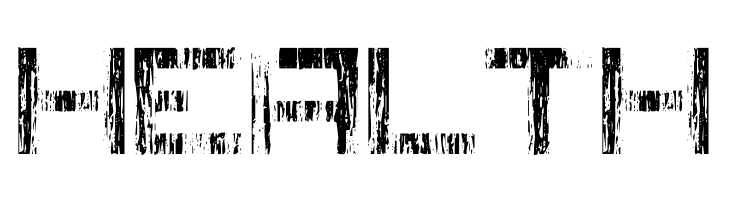
A bold, italic font with a dynamic and modern style.
A playful, bold font with rounded, hand-drawn characters.
A playful, italic font with bold, hand-drawn characters and a whimsical style.
A playful, hand-drawn font with a condensed and quirky style.
A bold, condensed, and italicized font with a dynamic and modern style.
A whimsical, decorative font with looping, swirling strokes and calligraphic flair.
A bold, distressed font with a splattered, gritty appearance.
A modern, geometric font with bold, clean lines and a cohesive design.
A runic-inspired font with bold, angular, and geometric shapes.
A decorative, runic-inspired font with a bold, distressed texture.
An ornate and decorative font with elaborate swirls and flourishes.
A bold, distressed font with a grunge aesthetic, perfect for impactful designs.
A bold, striped font with a modern, industrial look.
A bold, distressed font with a grunge aesthetic and textured edges.
A hand-drawn, casual font with uneven strokes and a playful appearance.
A bold, distressed font with a vintage, textured appearance.
A bold, decorative typeface inspired by ancient runic alphabets with geometric shapes.
A bold, brush-stroke style font with a hand-painted, textured appearance.
A bold, textured runic font with a rugged, ancient appearance.
A chaotic, distressed font with jagged strokes and splattered ink effects.
A casual handwritten font with a dynamic and lively appearance.
A bold, distressed font with a textured, grunge appearance.
A bold, distressed font with a vintage, grunge aesthetic.
A bold, distressed font with a brush-like texture and chaotic aesthetic.
A rugged, distressed font with a hand-drawn, textured appearance.
A distressed, runic-inspired font with angular, geometric shapes.
A bold, distressed font with a fragmented, edgy appearance.
( Fonts by David Kerkhoff - www.hanodedphotography.com )
A playful, textured font with a hand-drawn, bold style.
( Fonts by David Kerkhoff - www.hanodedphotography.com )
A bold, hand-drawn font with irregular, jagged edges and dynamic style.
( Fonts by David Kerkhoff - www.hanodedphotography.com )
A bold, runic-style font with a rugged, ancient appearance.
A bold, brush-textured font with a raw and energetic style.
A bold, distressed font with a paint-splattered, grunge style.
A bold, distressed font with a grunge texture and rugged appearance.